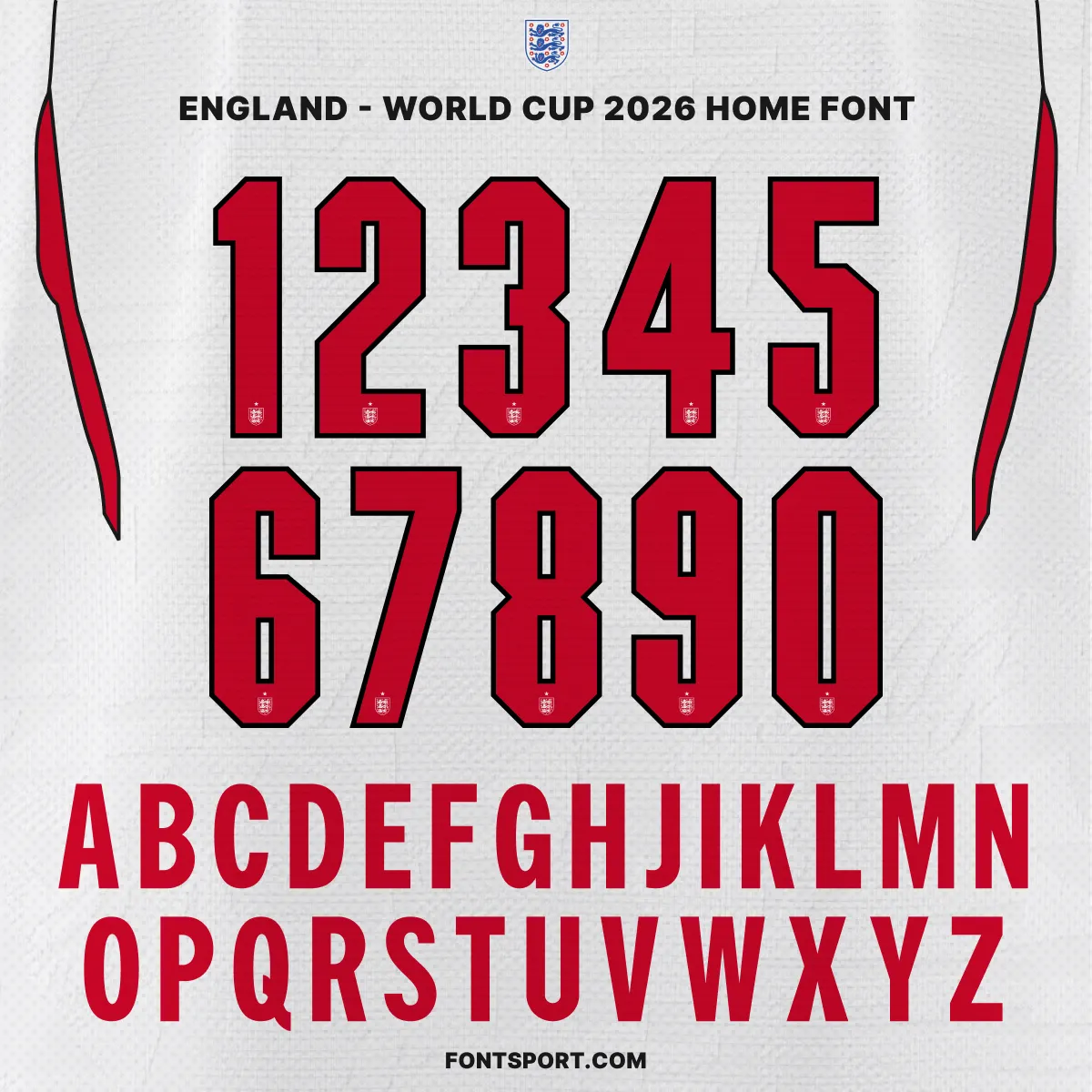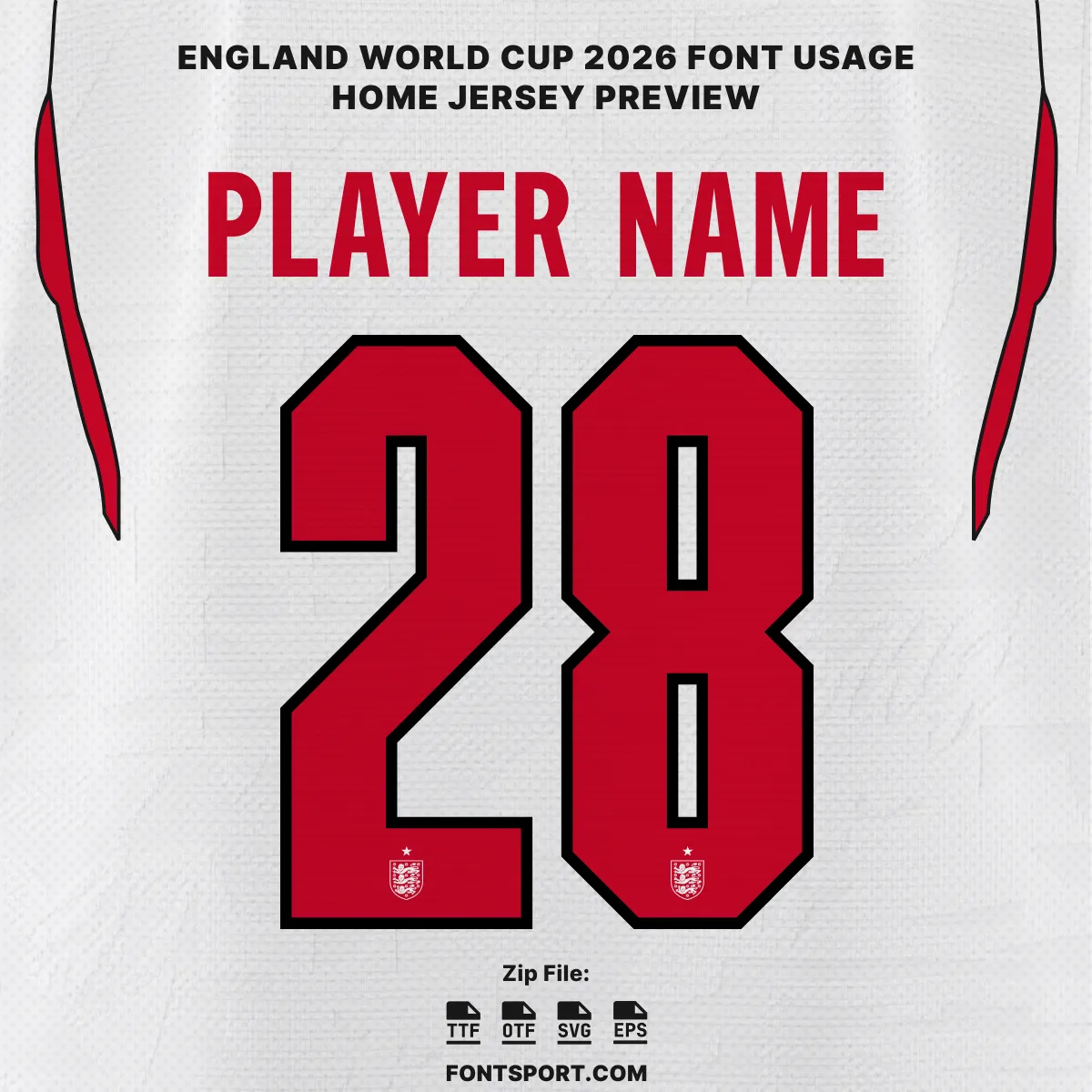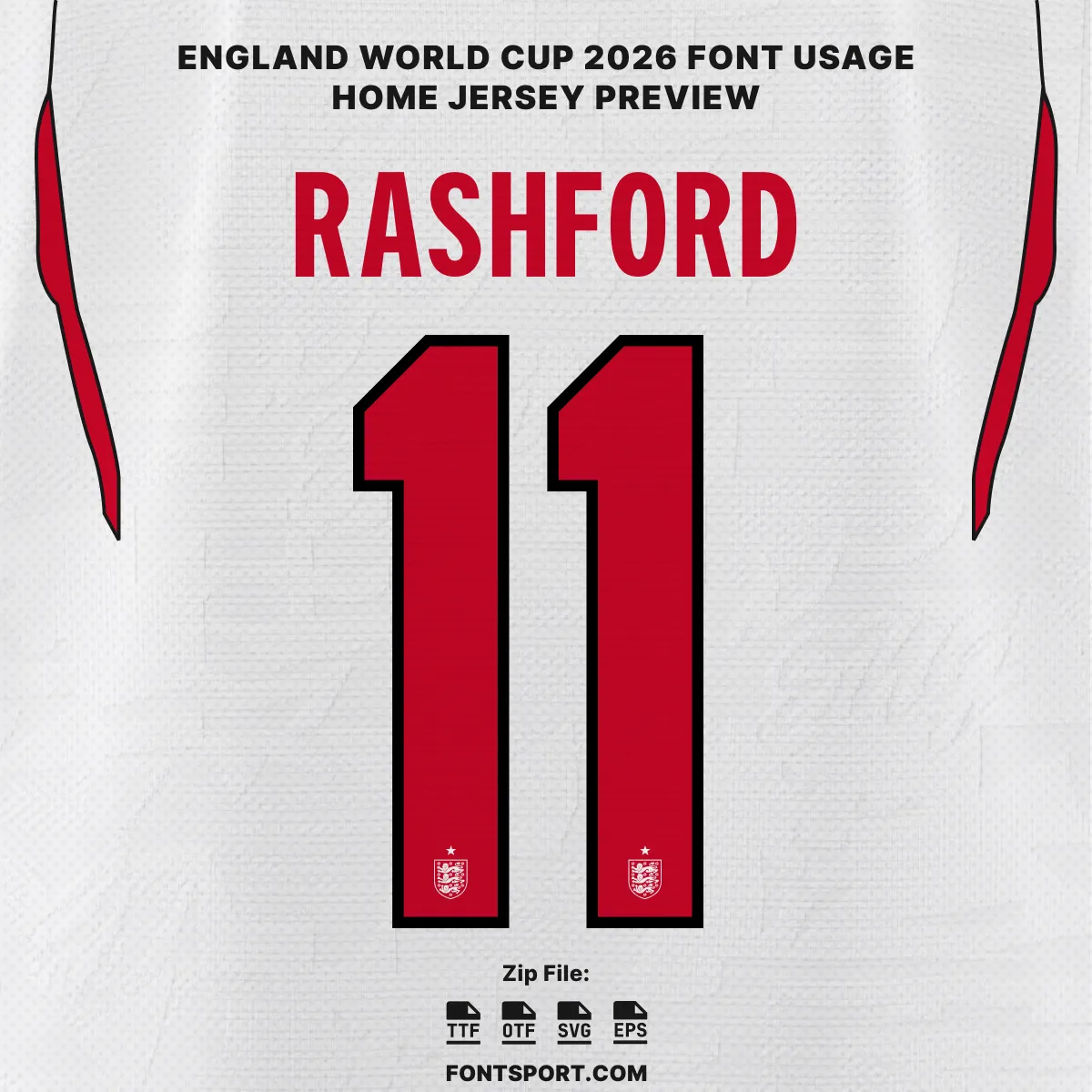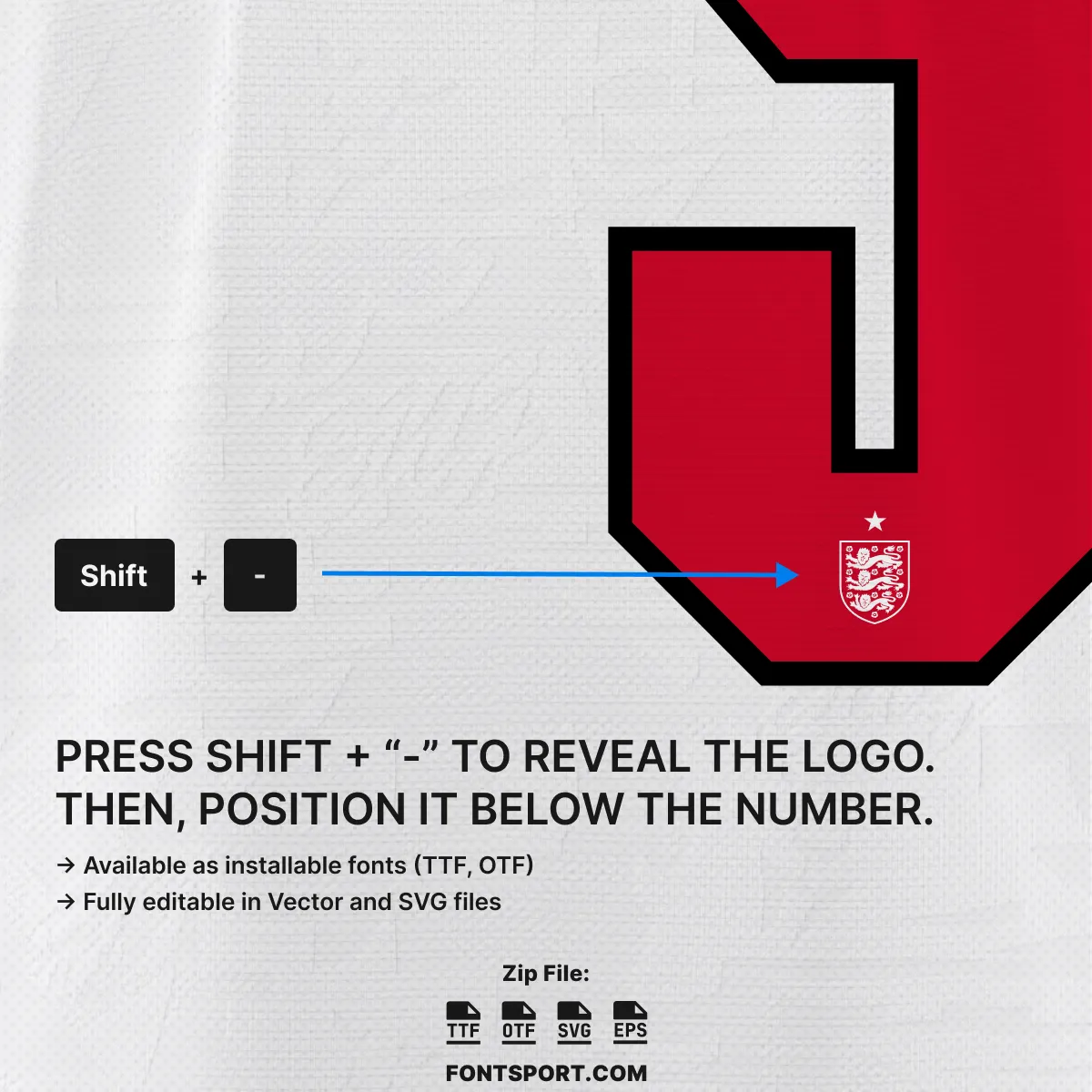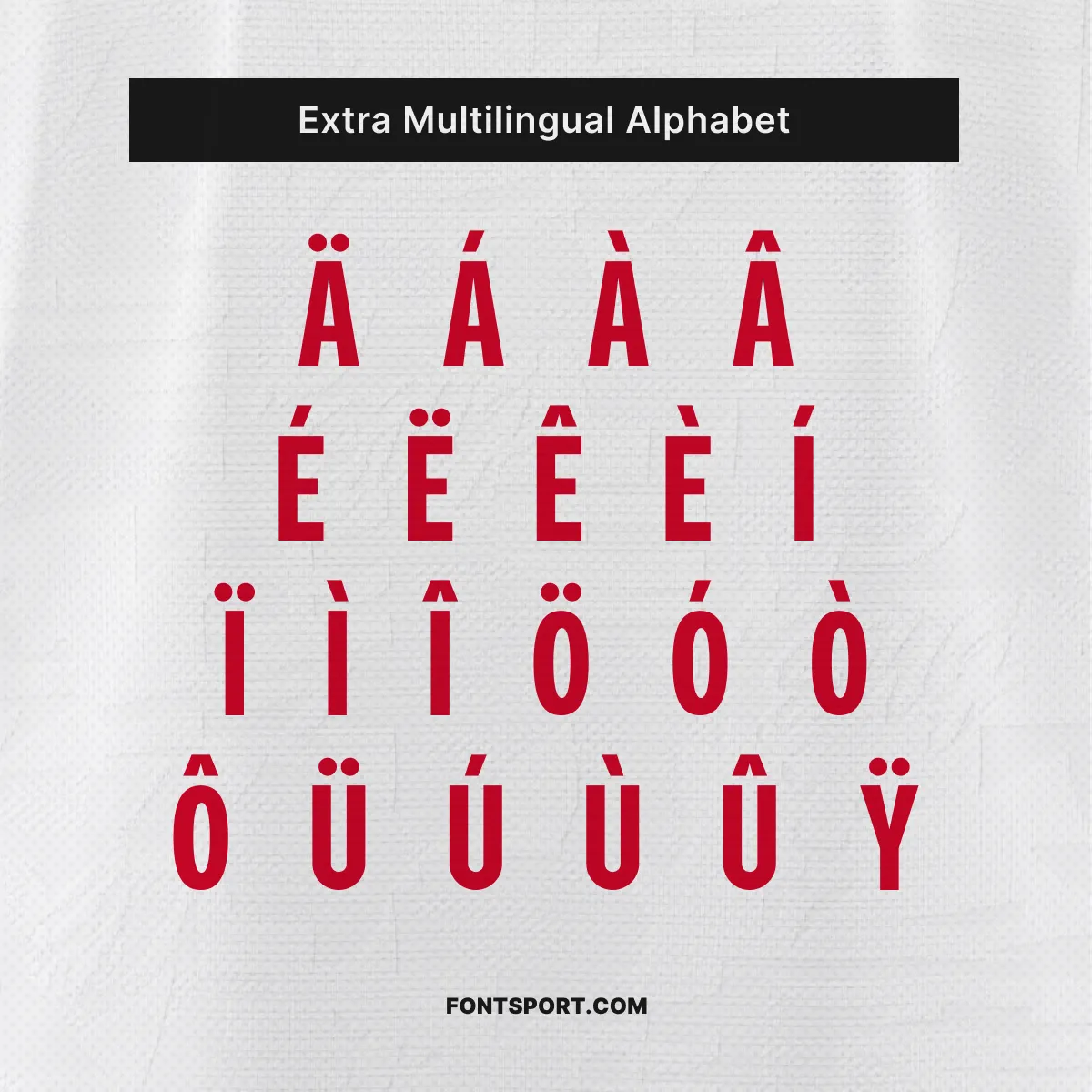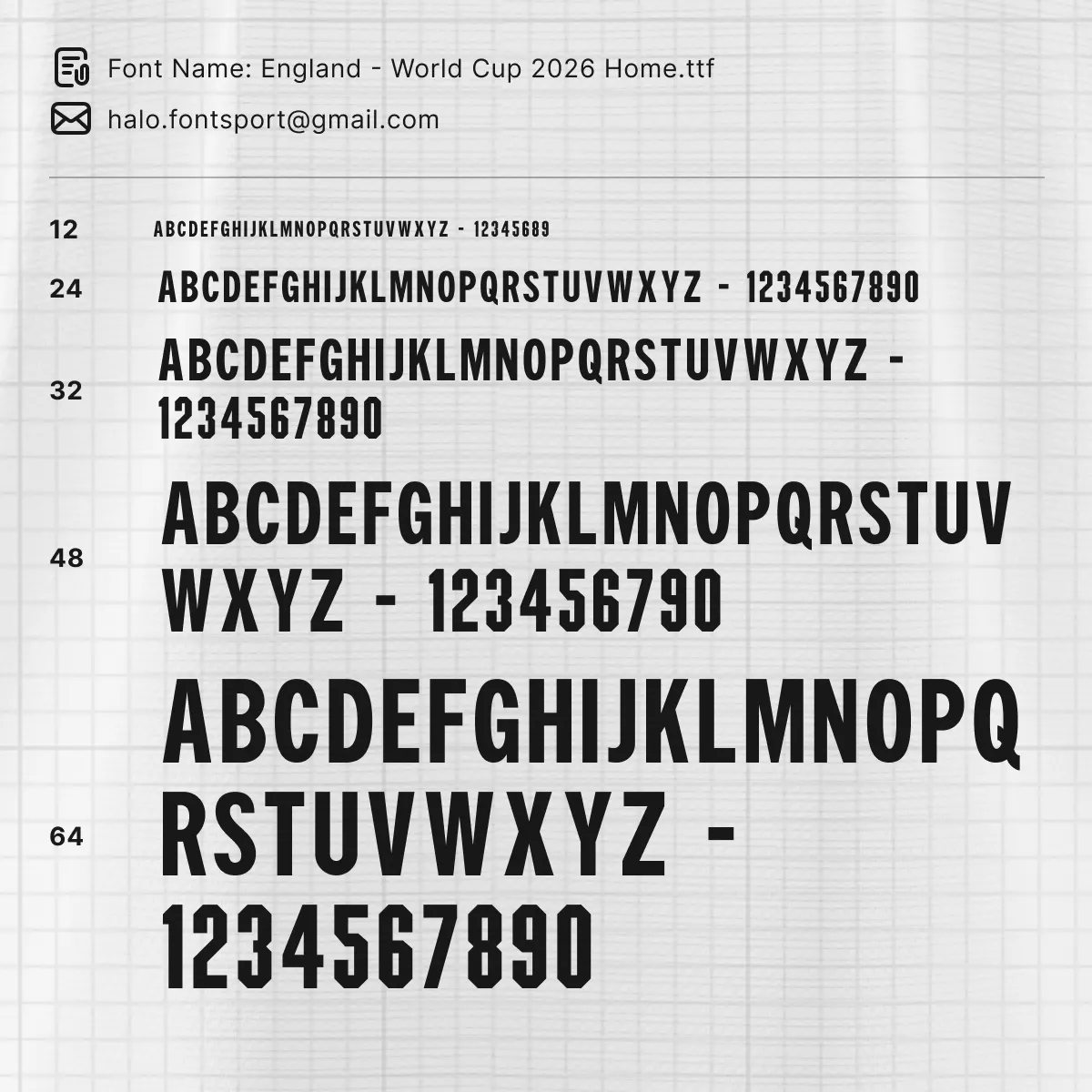
England World Cup 2026 Font Kit – Home | FIFA Tournament Typeface
Every sixty years, a nation holds its breath. With England heading to North America for the 2026 FIFA World Cup, the iconic all-white home shirt has never carried more weight — and neither has the typeface printed across the back of it. The England World Cup 2026 font kit (Home) is a character-by-character recreation of the bold, red lettering seen on Thomas Tuchel’s Three Lions throughout the tournament, designed to bring match-accurate precision to jersey mockups, fan artwork, and creative projects of every scale.
From Kane to Bellingham to Saka — this is the font that spells out the names England fans will be chanting all summer long.
Key Visual Identity of the Font
Number Design
The numbers are the centrepiece of this kit: wide, architecturally confident glyphs in deep crimson red, framed by a thick black outline with cropped octagonal corners that give each character a bold, modern-heritage feel. The internal negative space is precisely balanced — open enough to read in an instant from the stands, structured enough to feel premium on screen. Each digit carries the England Three Lions crest embedded within the base of the glyph, a detail that separates this from any generic football number font.
Letter Style
The uppercase alphabet mirrors the tight, condensed weight of the numbers — a compressed sans-serif with strong vertical strokes and minimal tapering. The letterforms are built for name-bar applications: short, readable at a distance, and unmistakably rooted in the visual language of a Nike World Cup kit. The overall character set carries that distinctly English restraint: nothing decorative, nothing unnecessary — just clean, powerful type that earns its place on the pitch.
• ✅ Full uppercase A–Z & numbers 0–9 in England’s authentic World Cup 2026 home style
• ✅ England Three Lions crest glyph — triggered via Shift + “-“, position beneath any number for a shirt-accurate look
• ✅ Extended multilingual Latin alphabet with diacritics: Ä, Á, À, Â, É, Ë, Ê, È, Í, Ï, Î, Ö, Ó, Ò, Ô, Ü, Ú, Ù, Û, Ÿ — ideal for international player names
England World Cup 2026 Home font kit – full alphabet and number set preview in red and black on white jersey background
England 2026 World Cup Font Kit – Home